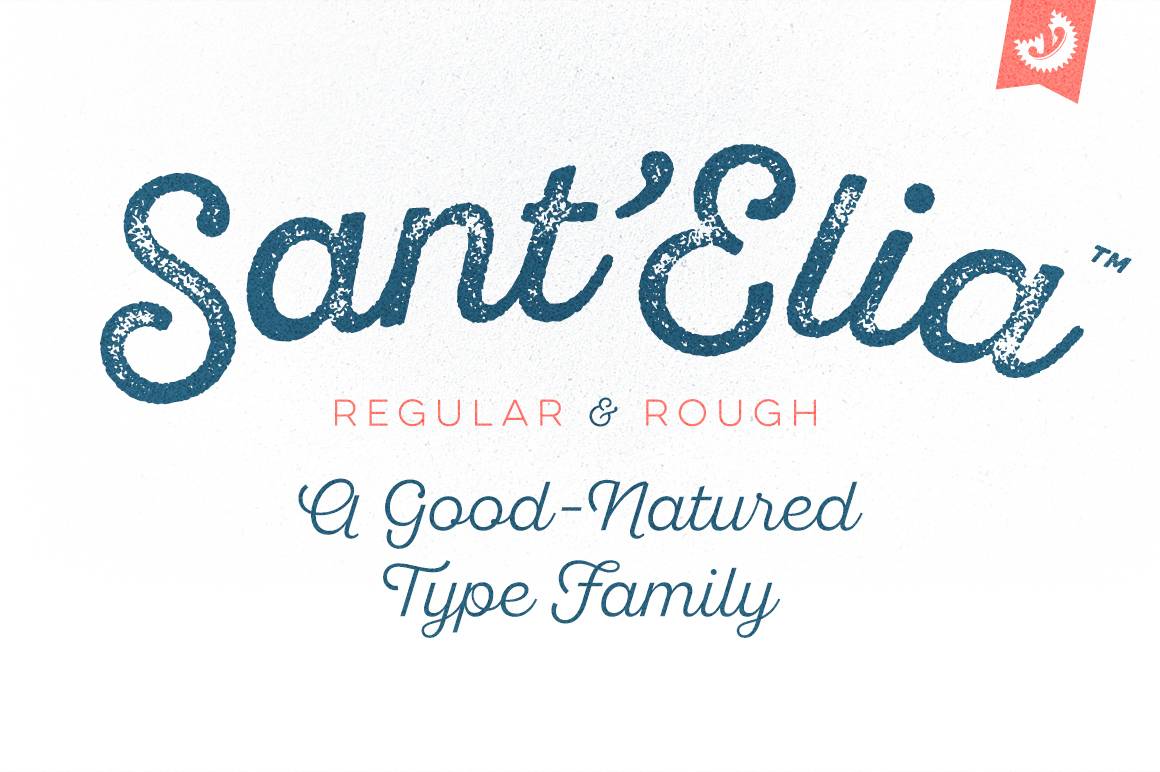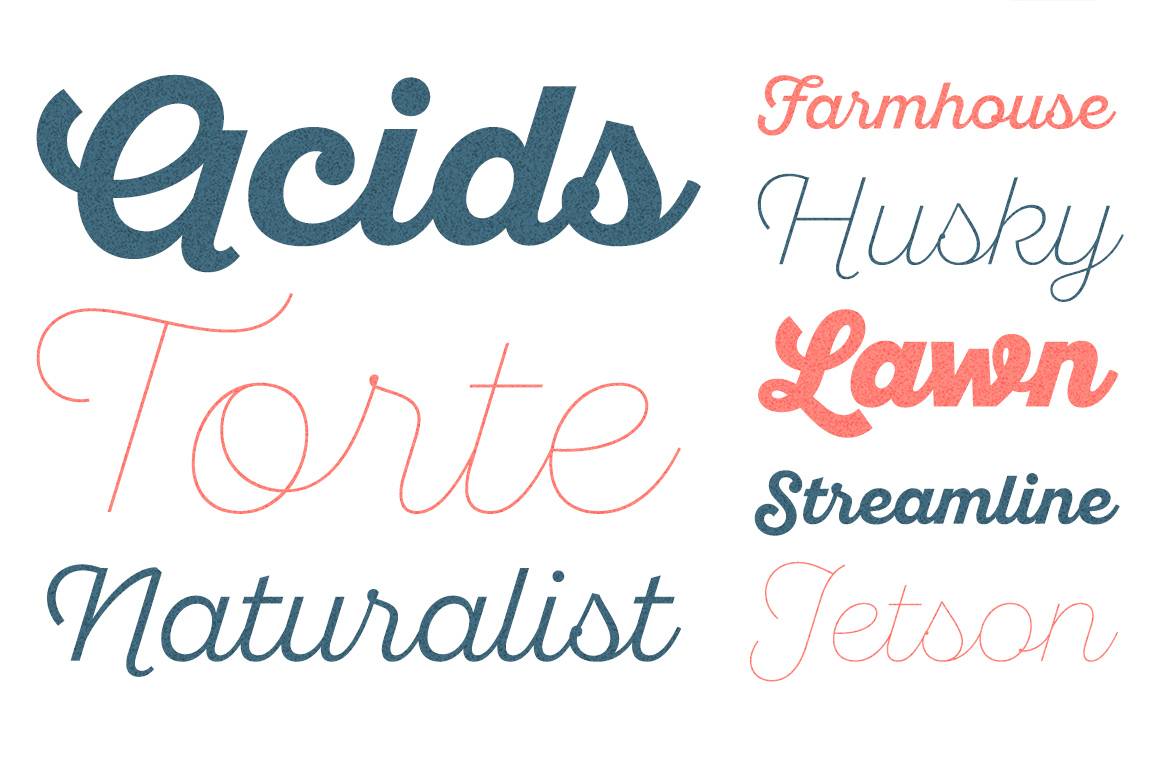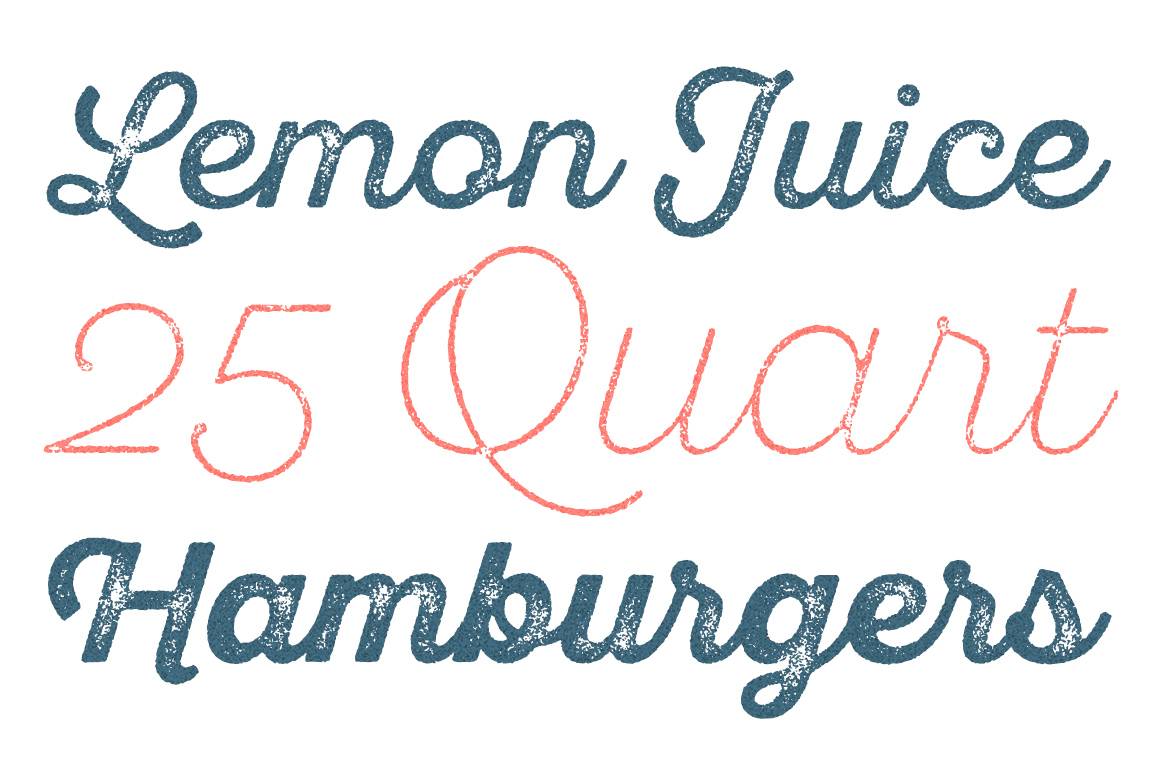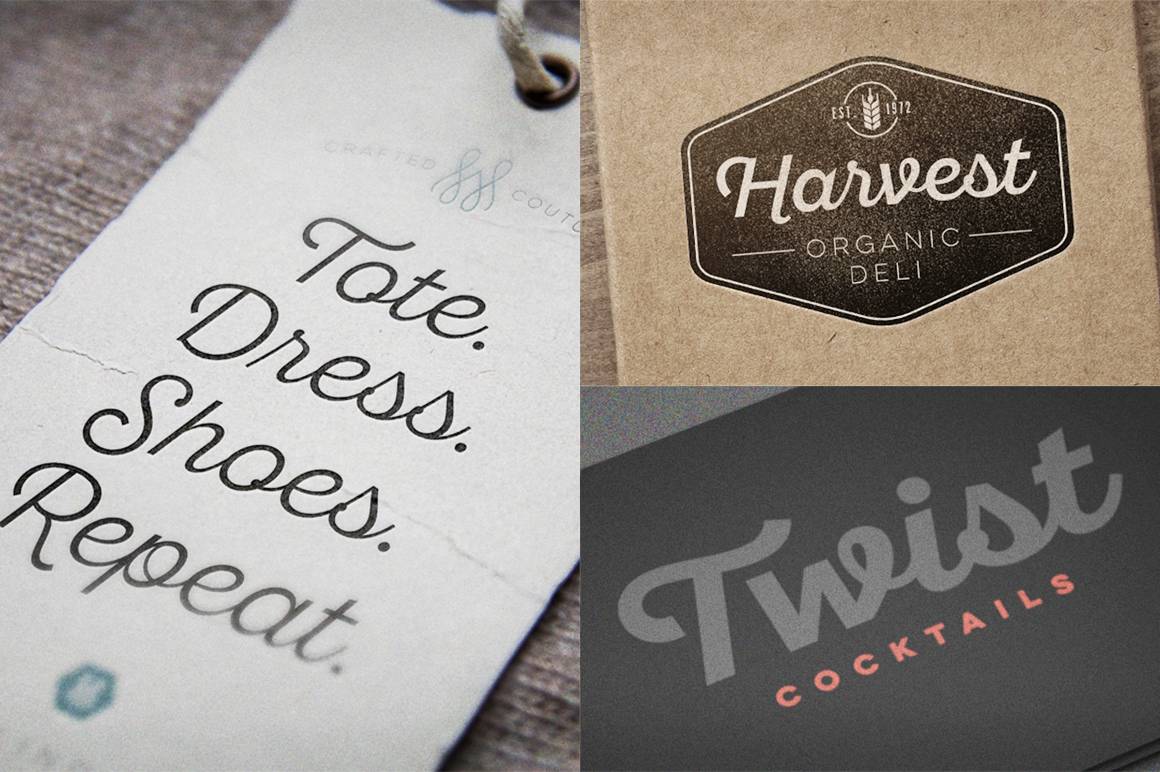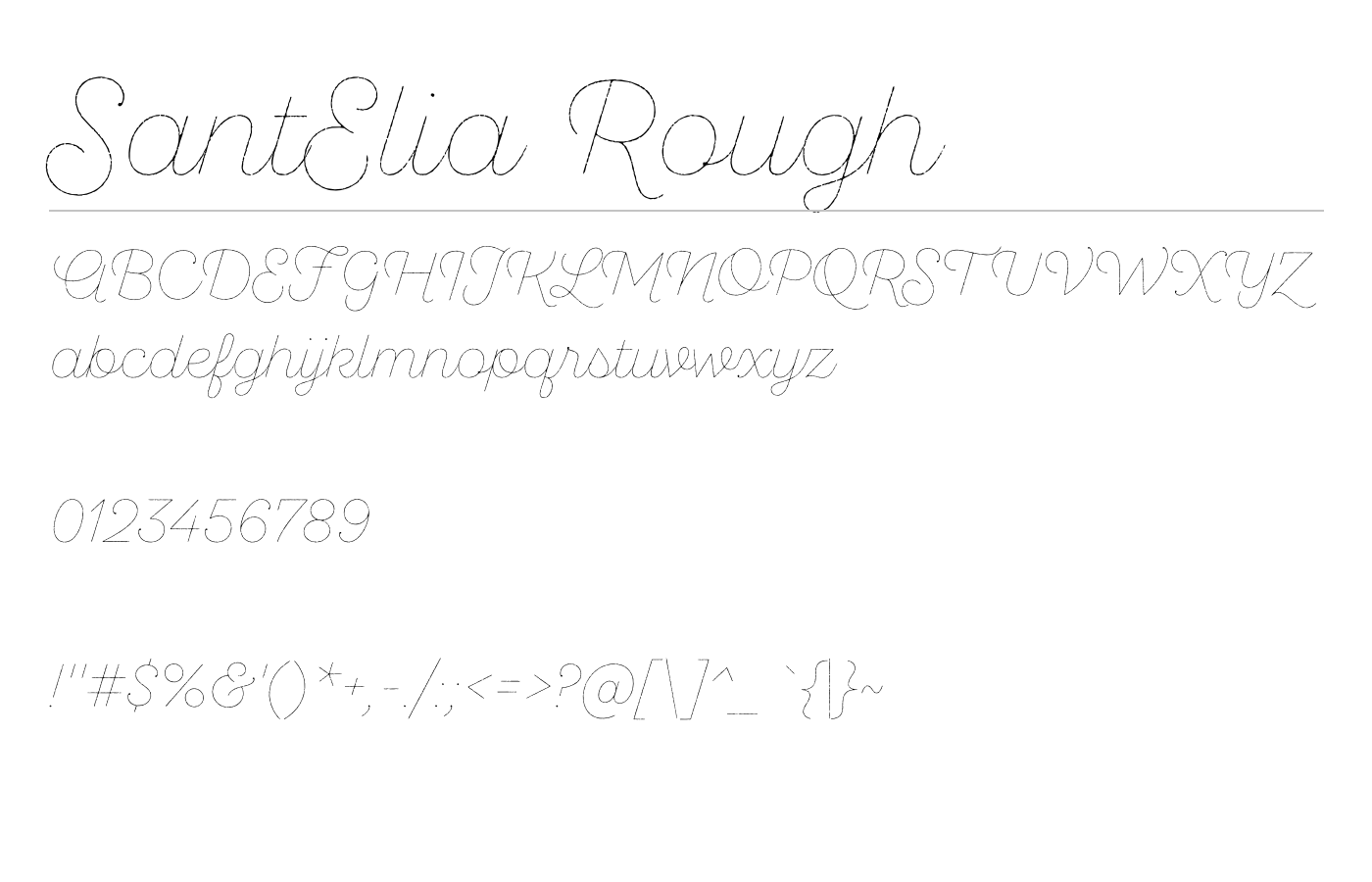
Sant’Elia Script – Demo is a delicate and elegant script font with fine, flowing lines and a hand-drawn feel. Its thin, graceful strokes and charming letterforms give it a refined, romantic personality perfect for invitations, branding, and editorial designs that want to evoke a sense of sophistication and subtle artistry. This font shines best in creative, lighthearted contexts where a touch of elegance and warmth is desired.
Sant’Elia Script – Demo
About Sant’Elia Script – Demo
| Font family | Sant’Elia Script – Demo |
| Designer | Ryan Martinson |